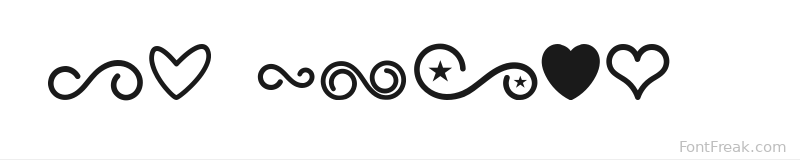
MF Dings 3
About MF Dings 3
MF Dings 3 is a captivating dingbat font designed by Misti Hammers, falling under the decorative category. This font is a delightful collection of whimsical symbols and icons, perfect for adding a unique flair to your design projects. The visual characteristics of MF Dings 3 include playful, curvy lines and varied stroke weights that create an engaging and dynamic appearance. The spacing between the elements is carefully crafted, ensuring that each icon stands out while maintaining a harmonious flow when used in sequences.
This versatile font finds its best use in a variety of creative applications. For instance, it is an excellent choice for wedding invitations where decorative symbols can enhance the romantic theme. Additionally, it works beautifully in children’s book illustrations, allowing for fun and imaginative designs. Restaurant menus can also benefit from the playful icons, making the dining experience more inviting. Furthermore, graphic designers can utilize MF Dings 3 in branding projects to develop distinct logos or promotional materials that catch the eye. Content creators looking to add visual interest to their blogs or social media posts will also find this font a valuable asset.
The target audience for MF Dings 3 includes graphic designers, small business owners, and content creators who seek to elevate their work with unique and engaging visuals. The font’s freeware license makes it accessible to all, encouraging creativity without financial barriers.
What sets the MF Dings 3 font apart is its charming blend of artistry and functionality. Designed with attention to detail, it not only enhances visual communication but also invites viewers to engage with the content. For anyone looking to add a touch of whimsy to their projects, MF Dings 3 font free download is an ideal choice.